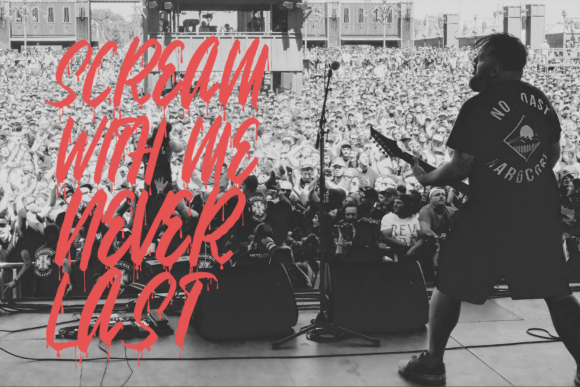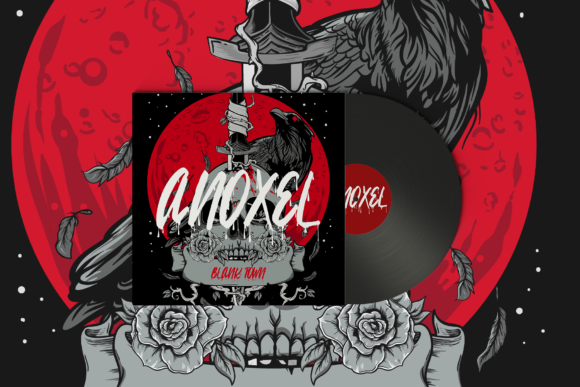
Drippy Message is a unique and scary display font. A little bit quirky, this font looks incredibly adept on a wide variety of Halloween projects!
Drippy Message Font